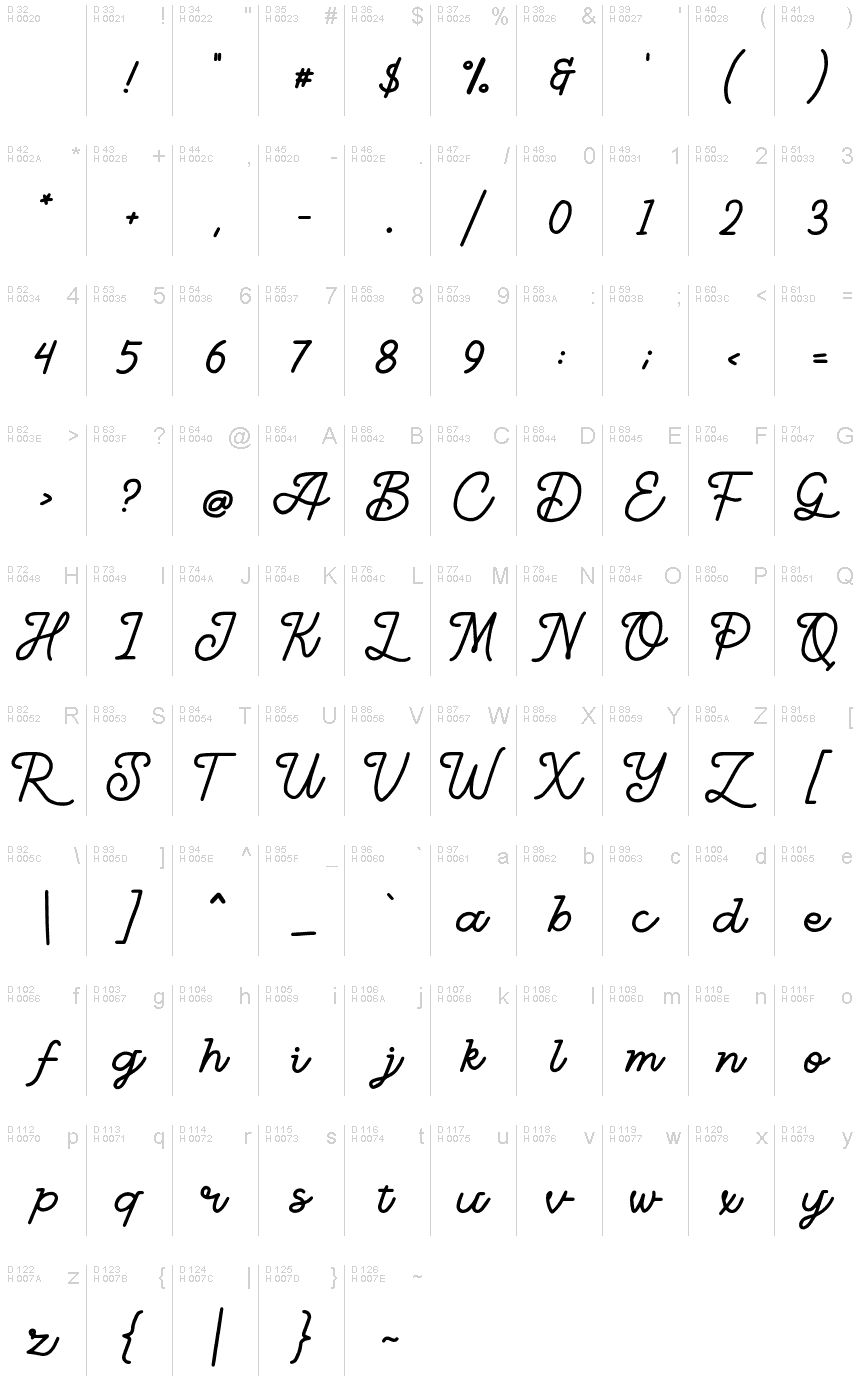
Big Tales
Big Tales, the latest vintage script font from Typefactoryco, is the perfect mix of old-school charm and modern-day flair. With its semi-light weight and elegant curves, this font is ideal for projects that require a touch of sophistication - think wedding invitations, restaurant menus or even branding for boutique hotels. It's also great for projects that require a whimsical touch, like children's book covers or playful social media graphics. Whether you're looking to add a touch of elegance or playfulness to your project, Big Tales is sure to deliver.
Big Tales is a monoline script font. It maintains its classy calligraphic influences while feeling contemporary and fresh.
This versatility will appeal to a wide range of crafty ideas, from letterheads and titles, to stationery.